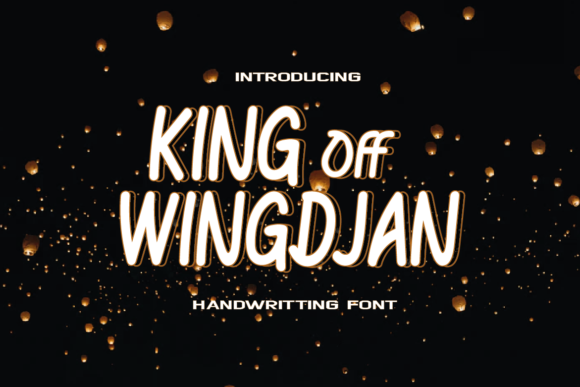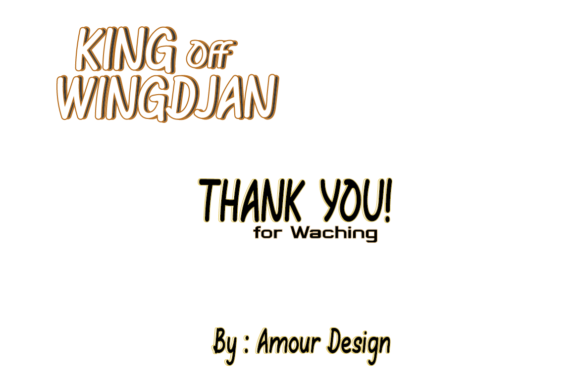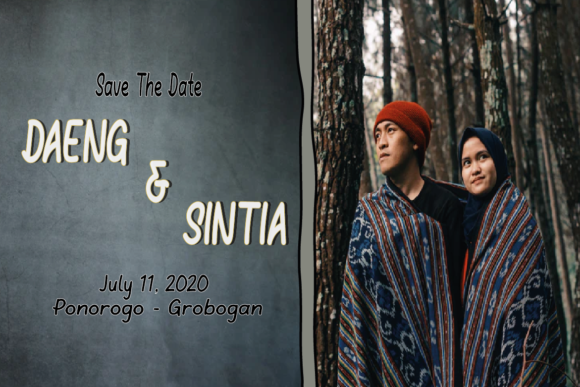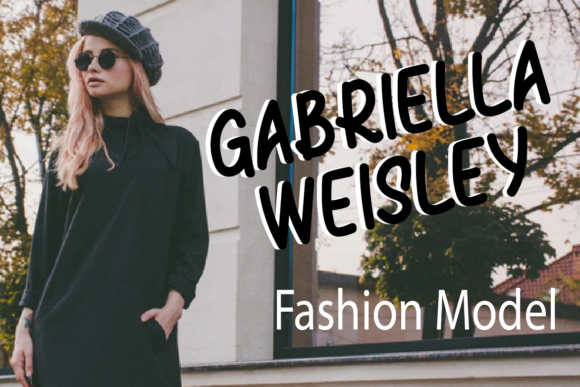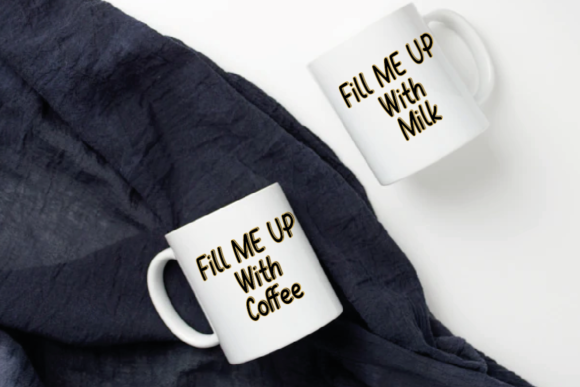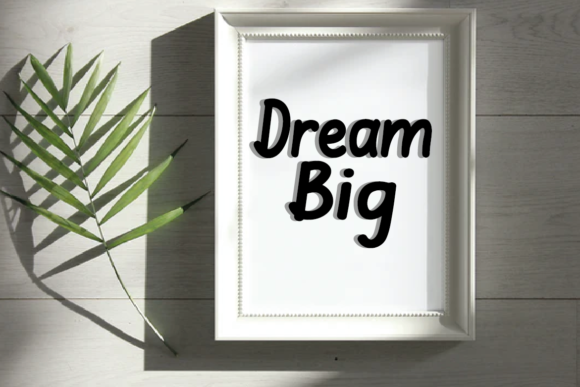
King off Wingdjan Font
About King off Wingdjan Font
King off Wingdjan is a simple, cool and informal handwritten font that can be used for all chalkboard quotes or teaching material! Its authentic look and feel will add a personal and realistic feel to your designs.